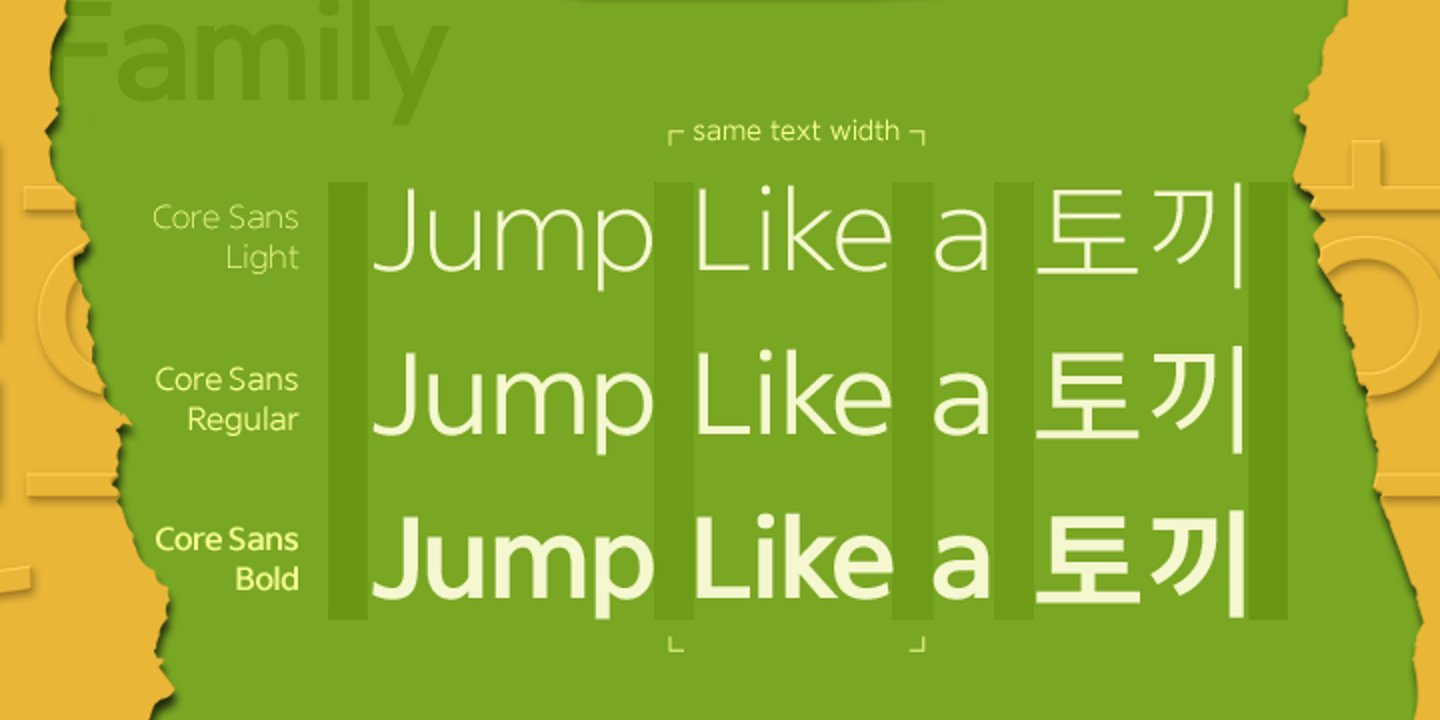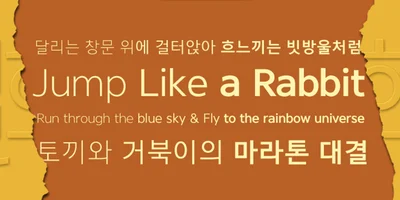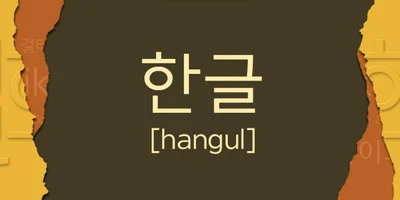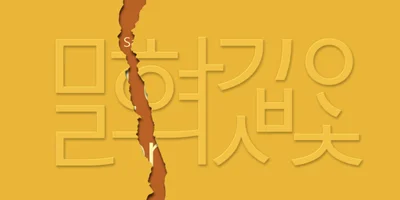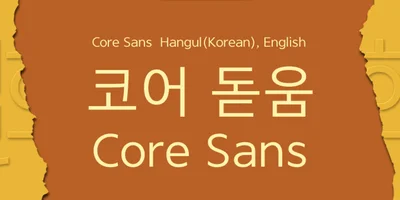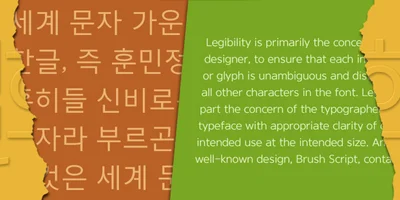
Acumin vs Core Sans
Acumin and Core Sans are both sans-serif typefaces sharing a neo-grotesque foundation. Compare which suits your Ui project.
Design overlap:67%
| Feature | Acumin | Core Sans |
| Source | Adobe | S-Core |
Consider: Core Sans
- minimal design character
- From s-core